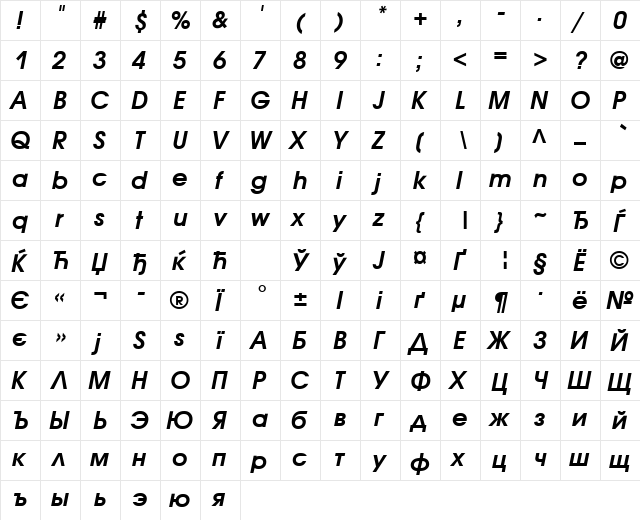
AvantGardeCTT BoldItalic Font Preview
AvantGardeCTT BoldItalic
Design Context for AvantGardeCTT Typeface
AvantGardeCTT is a composed and adaptable typeface that performs quietly and consistently across a wide range of design contexts. The dynamic lean of this cut emphasises speed and emphasis in any layout. The heavy weight commands attention and anchors typographic hierarchies.